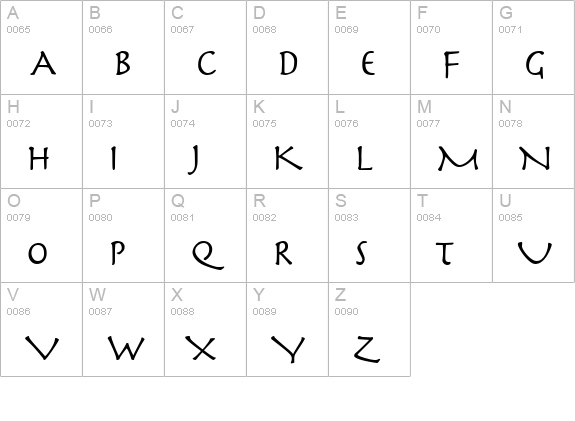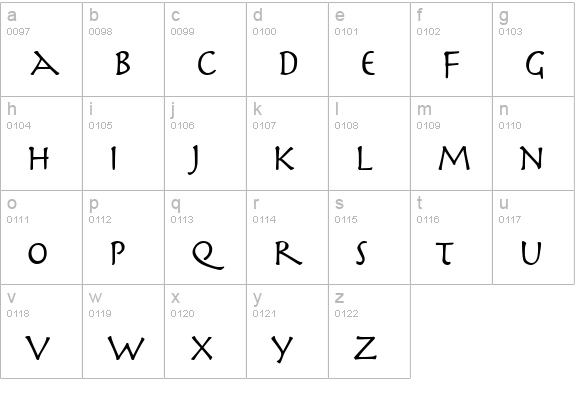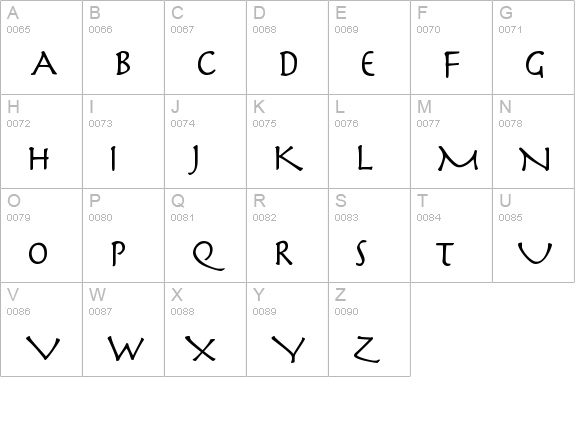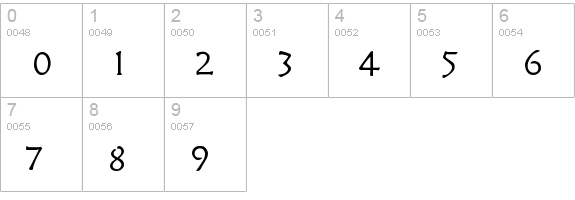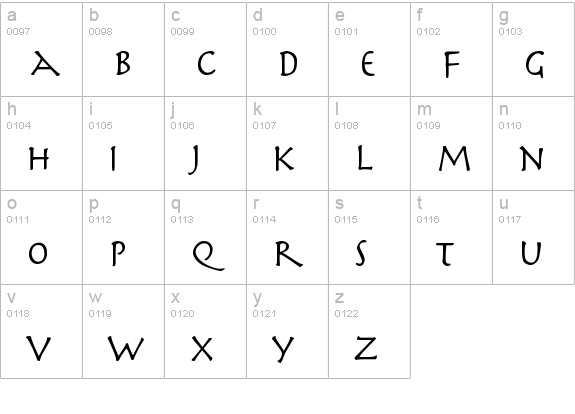
Sparta SSi Font Details
Introducing Sparta SSi, a bold and captivating font that exudes strength, power, and timeless appeal. Crafted with meticulous attention to detail, this font is sure to make a lasting impression in any design project. With its sharp and angular letterforms, Sparta SSi commands attention and conveys a sense of authority. Whether used in headlines, logos, or branding materials, this font adds a touch of boldness and elegance to any composition. But what sets Sparta SSi apart from other fonts is its accessibility. This remarkable typeface is not only visually striking, but it is also freely available to download at FontsMarket.com. Yes, you read that right – Sparta SSi can be yours at no cost, allowing you to unleash your creativity without any limitations. Ideal for both print and digital designs, Sparta SSi brings a modern twist to classic typography, making it perfect for various projects across different industries. From fashion to technology, from sports to entertainment, this versatile font effortlessly adapts to any context, adding a touch of sophistication and professionalism. The strong and commanding presence of Sparta SSi is further enhanced by its extensive character set, which includes uppercase and lowercase letters, numbers, punctuation marks, and special characters. This comprehensive range ensures that you have all the tools you need to create stunning and impactful designs. So why wait? Take advantage of this exceptional opportunity to download Sparta SSi for free at FontsMarket.com and elevate your design projects to new heights. Unleash the power and elegance of this extraordinary font and leave a lasting impression on your audience. With Sparta SSi, the possibilities are endless, and your creativity knows no bounds.